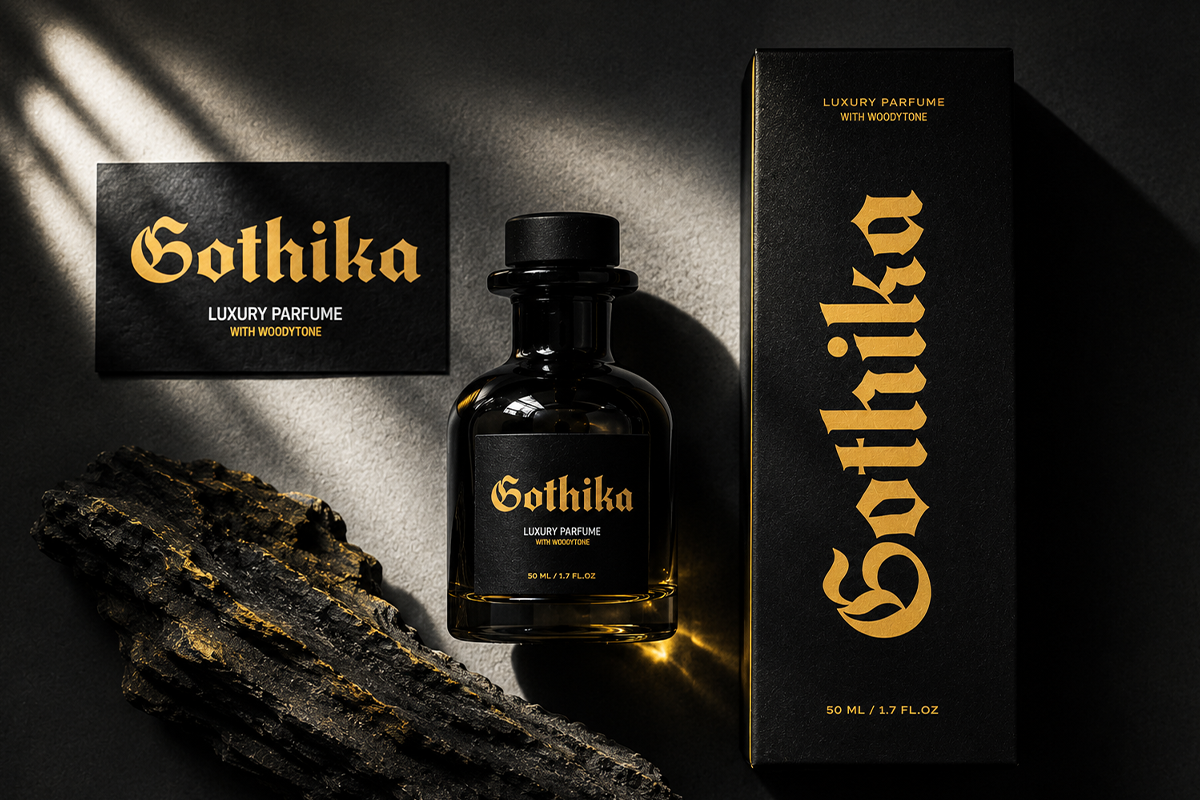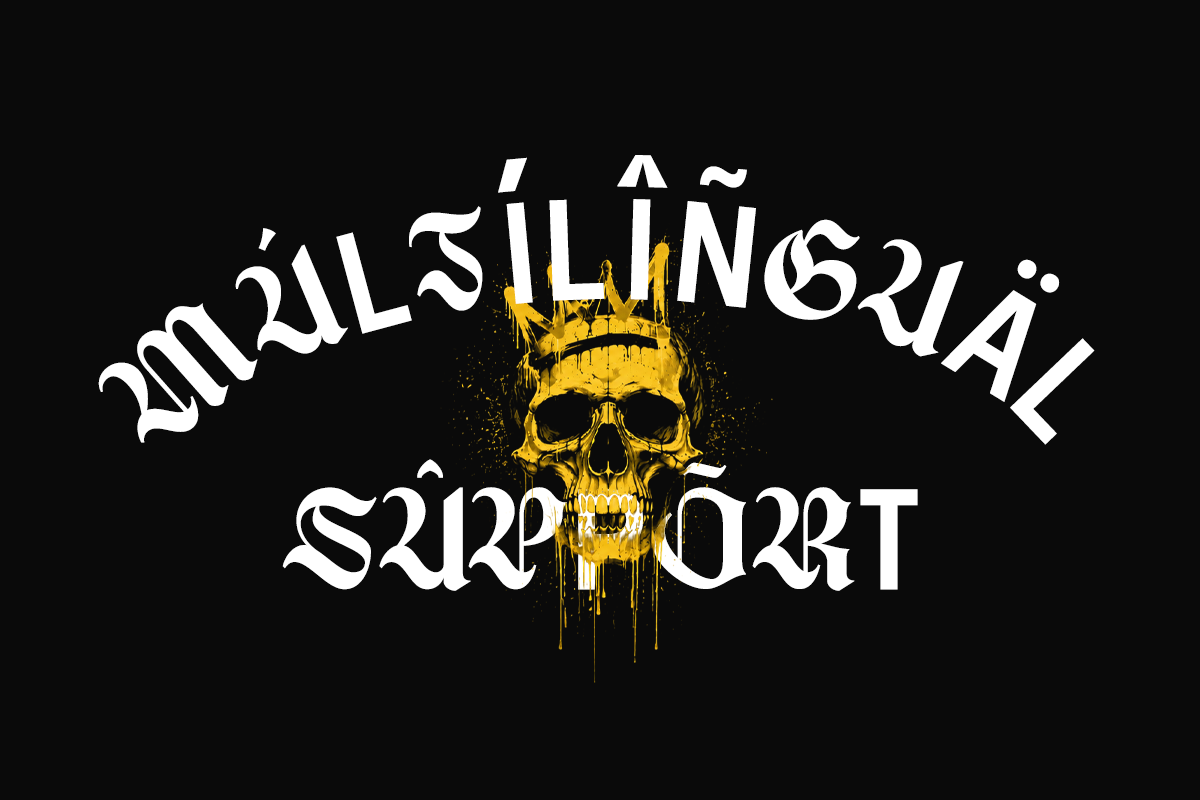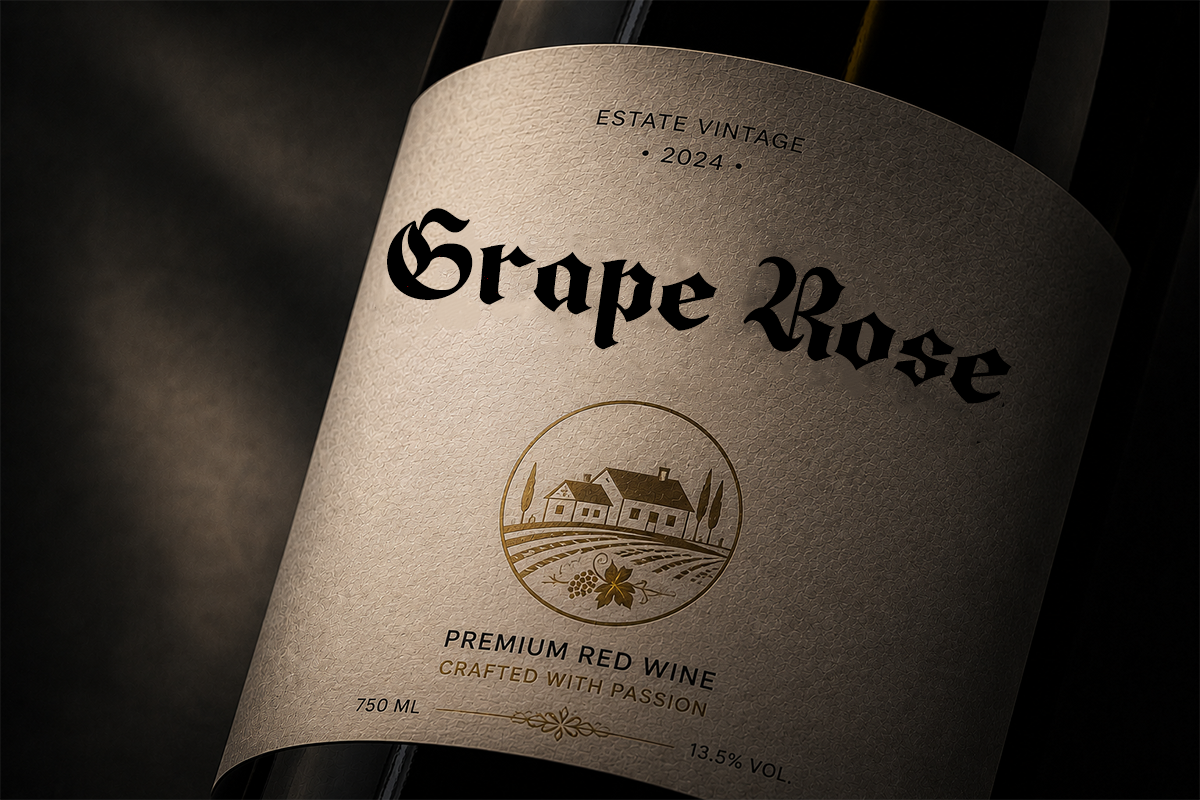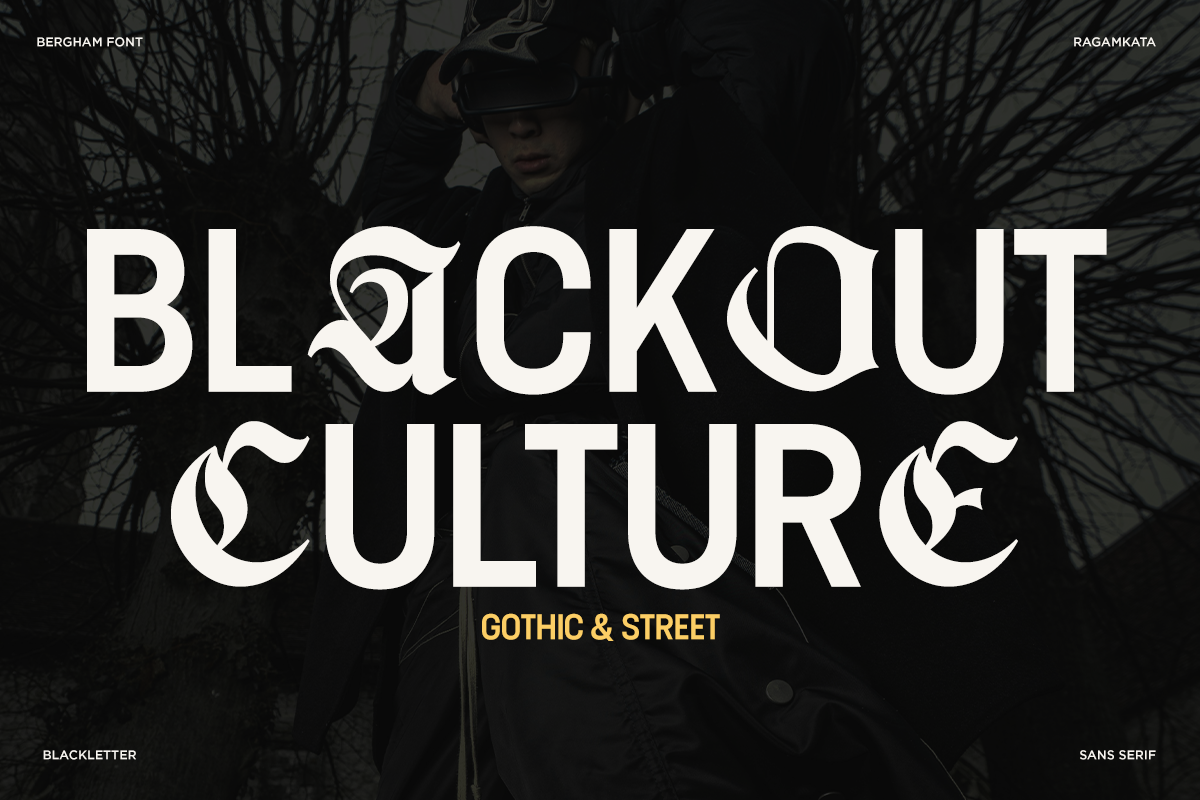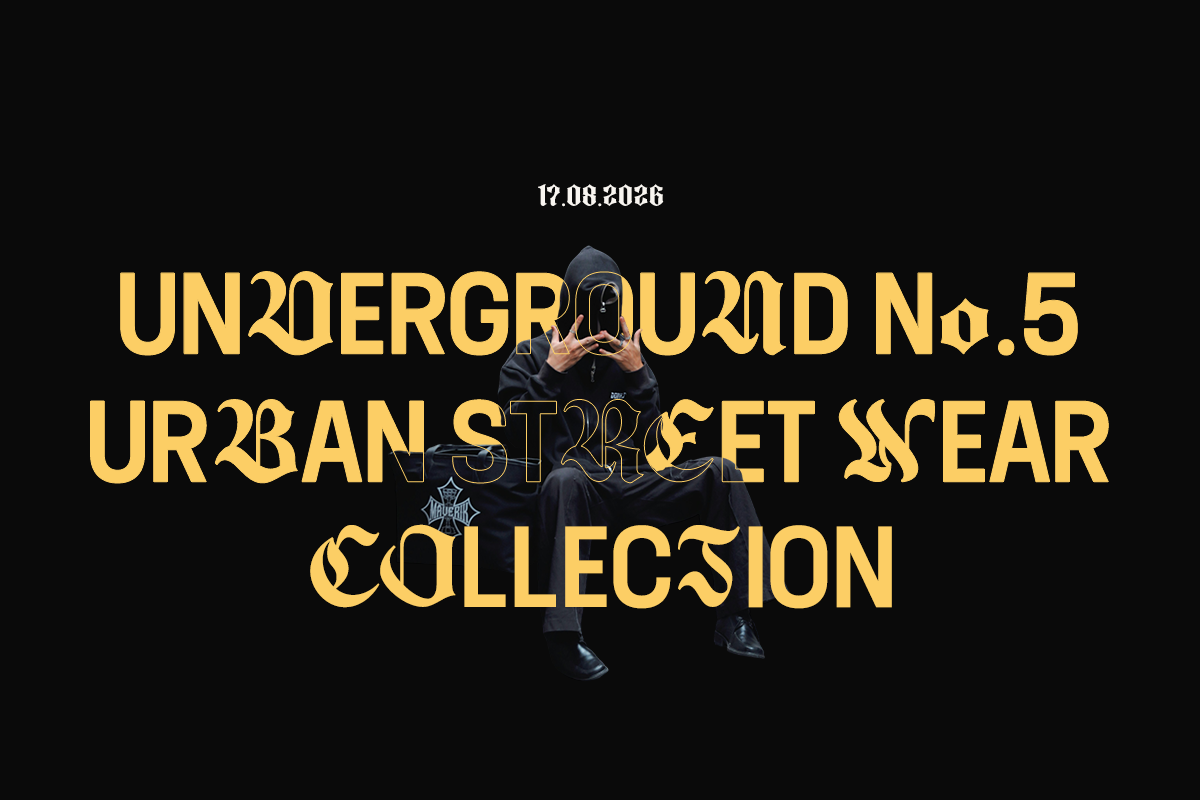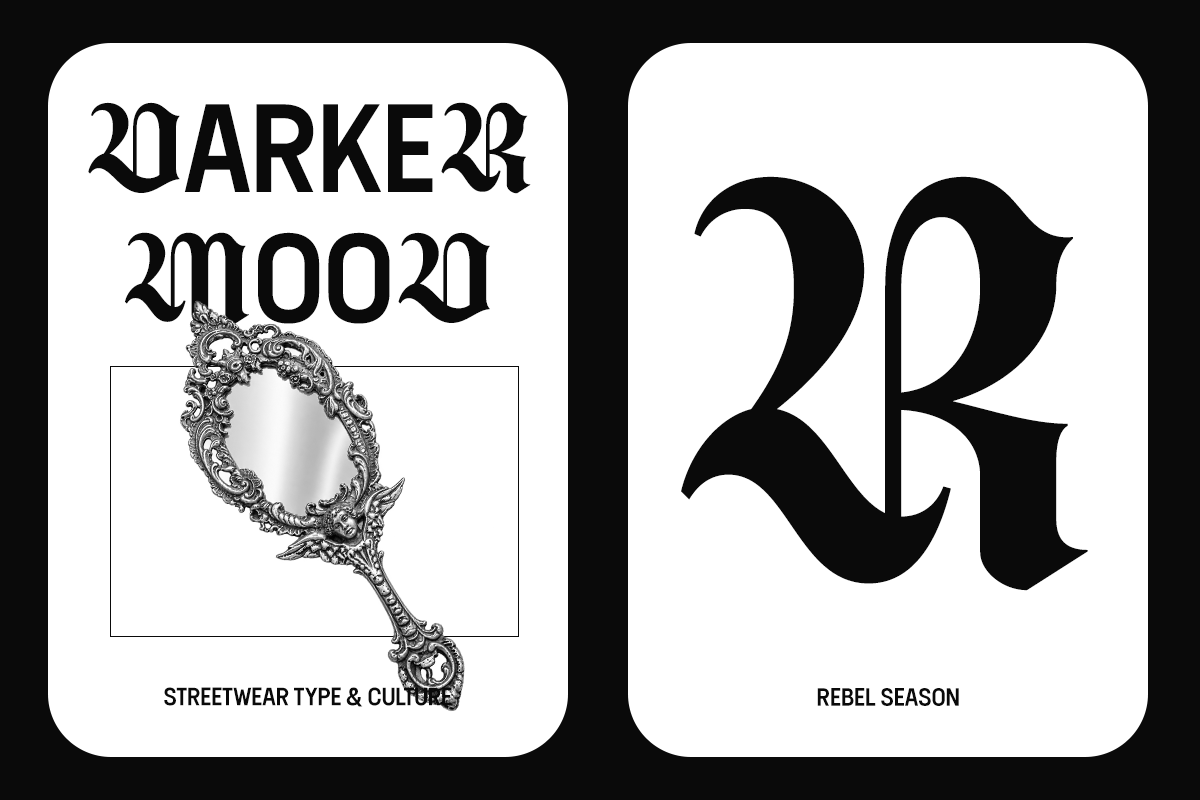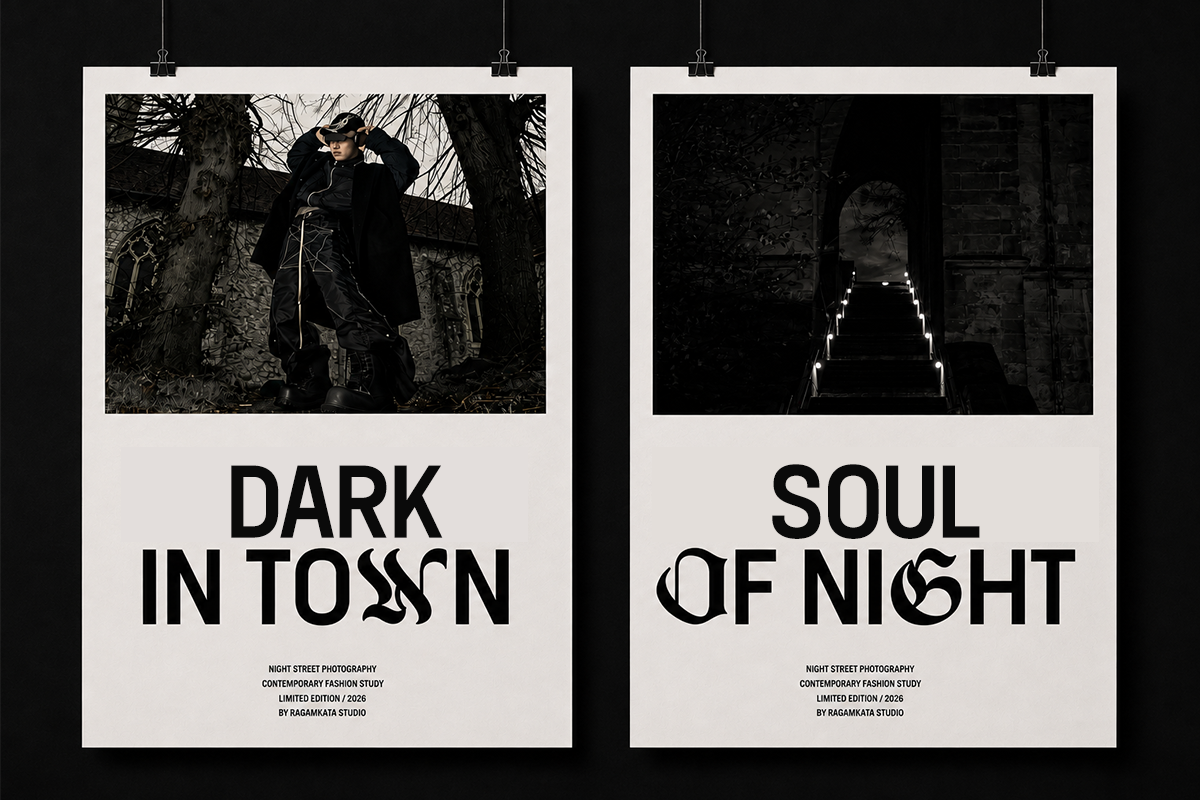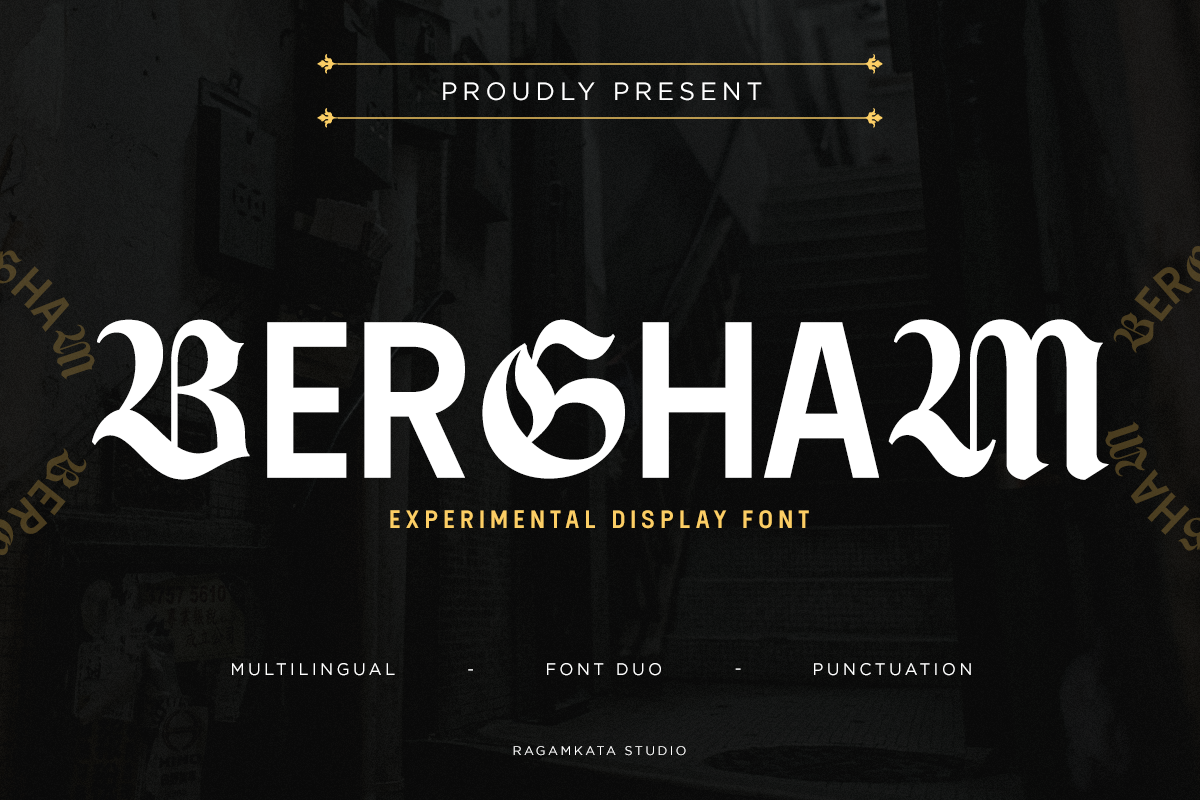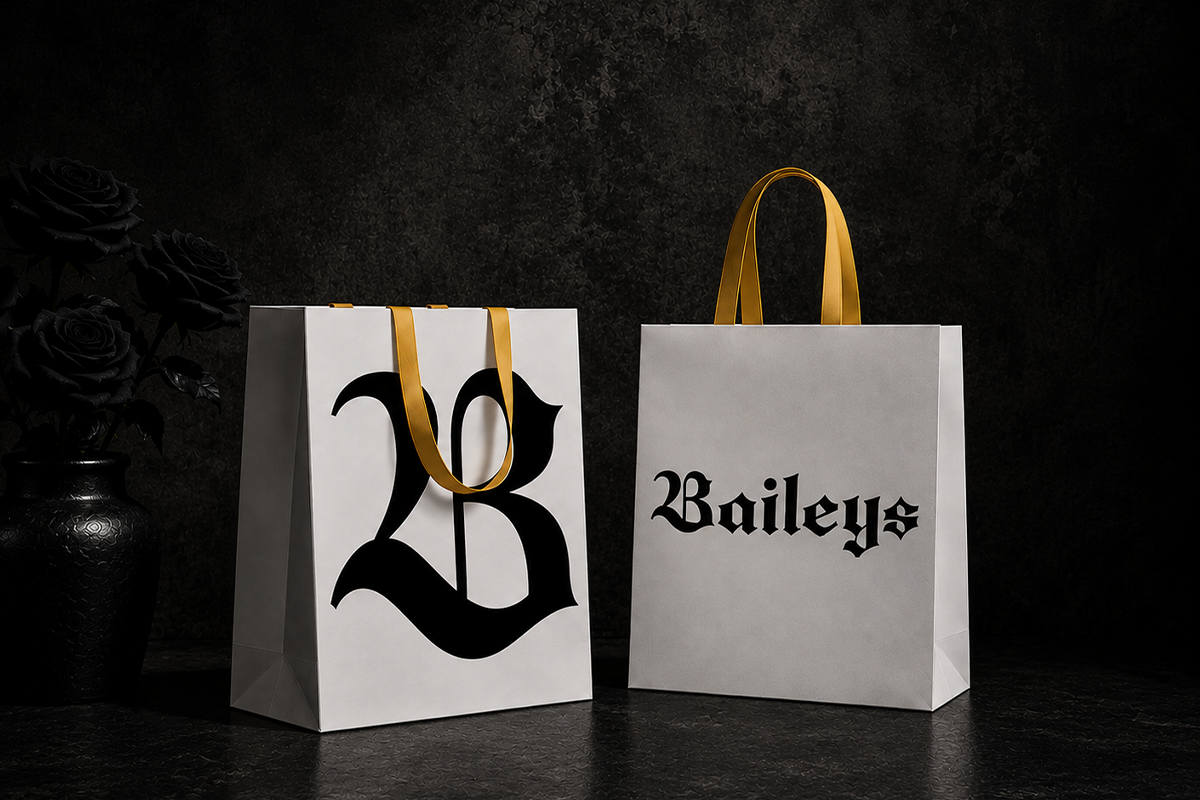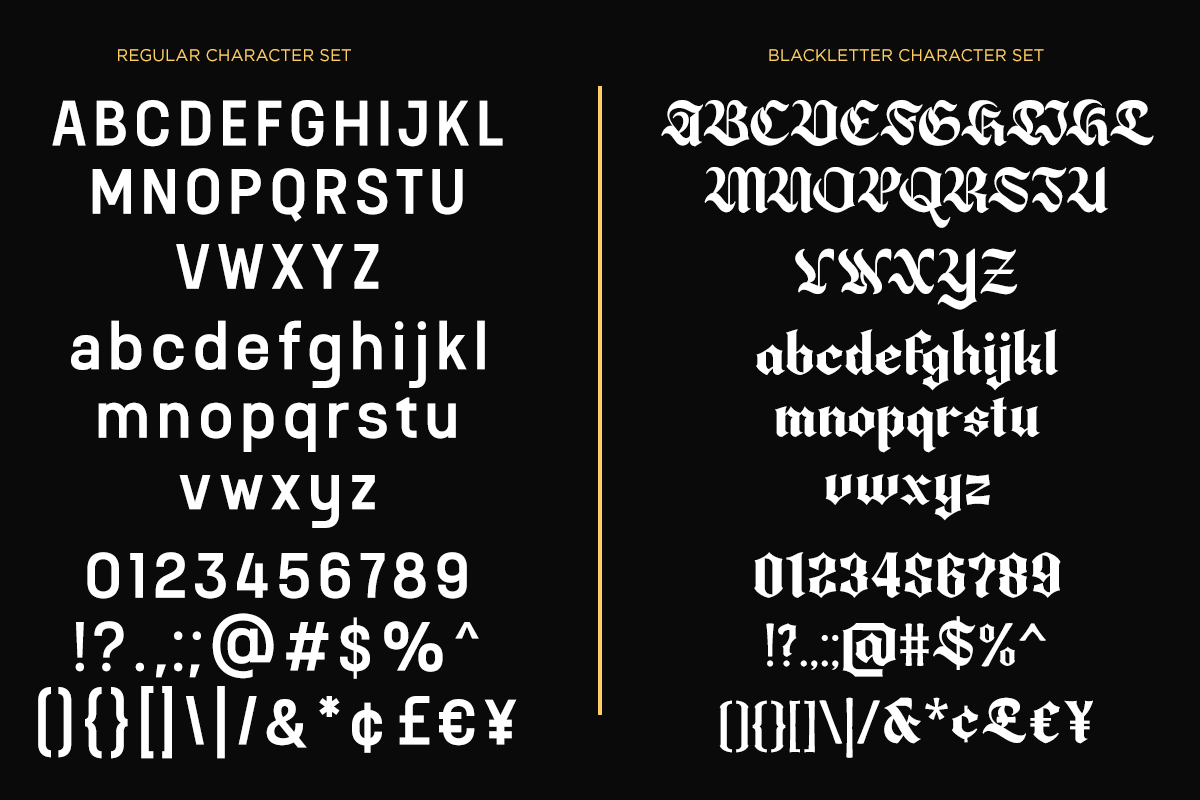
Bergham - Experimental Display Font
Bergham is an experimental gothic display font that combines dramatic blackletter influences with bold, decorative letterforms and a distinctive contemporary edge. Its intricate shapes and unconventional details create a powerful visual identity for projects that need a dark, artistic, and memorable aesthetic.
Perfect for logo design, branding, fashion, streetwear, posters, album covers, editorial design, packaging, labels, restaurant branding, beverage packaging, and headline typography. Bergham is designed to make a strong statement while adding a mysterious and sophisticated character to your creative projects.
Blackletter and Sans Serif Font
Regular and Italic
Number,Symbol, and Punctuation